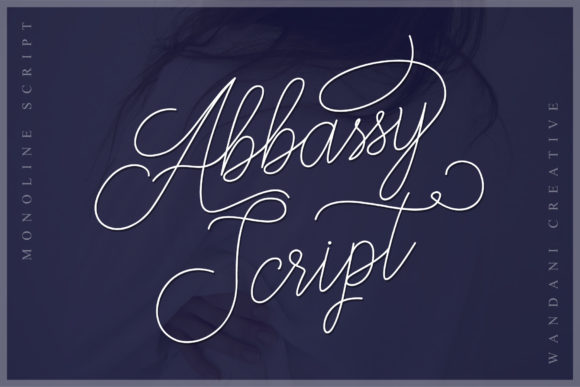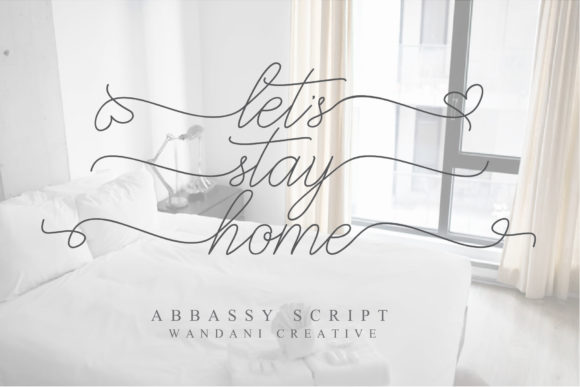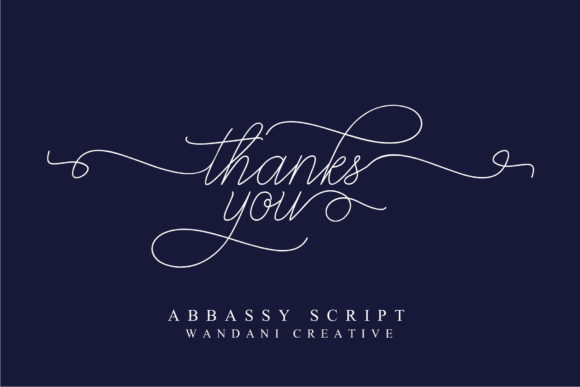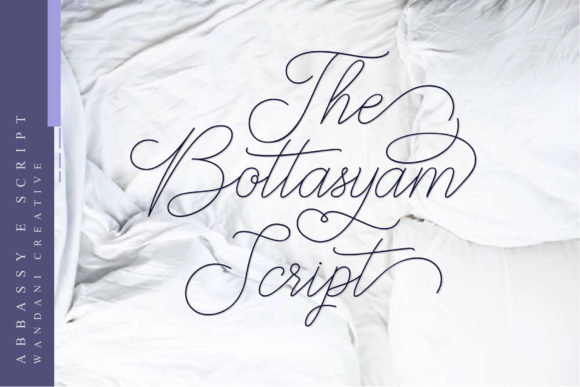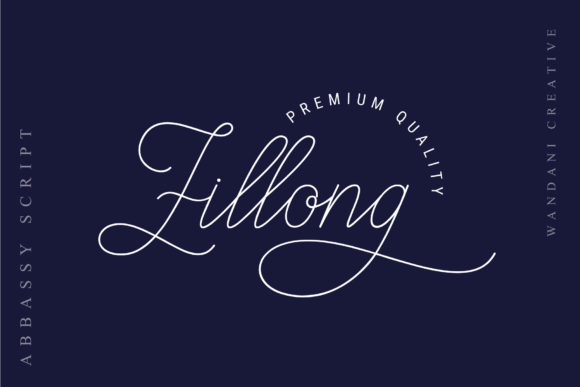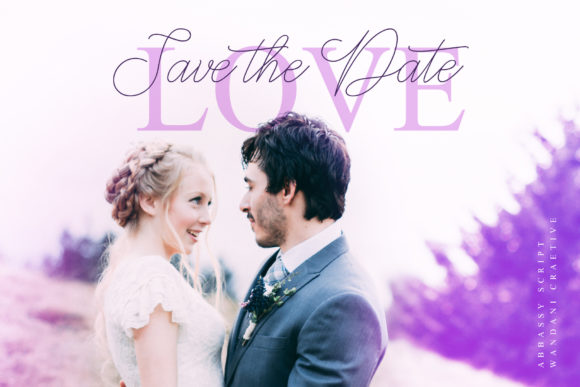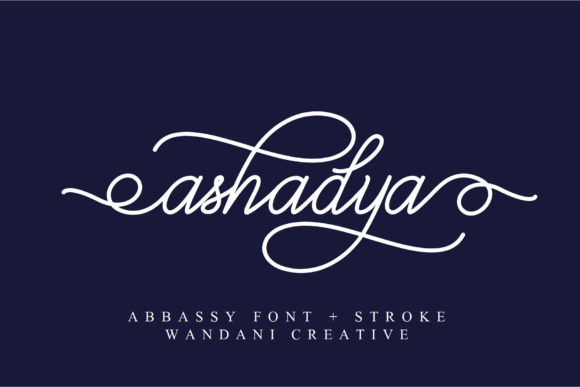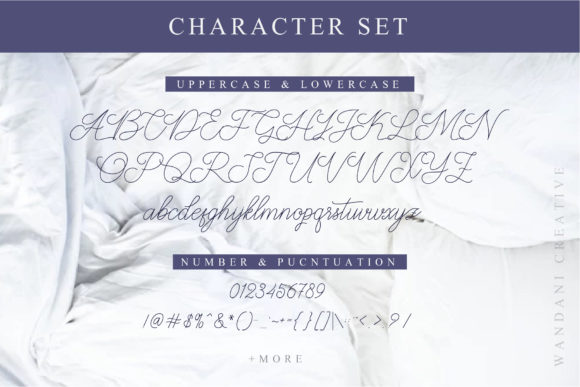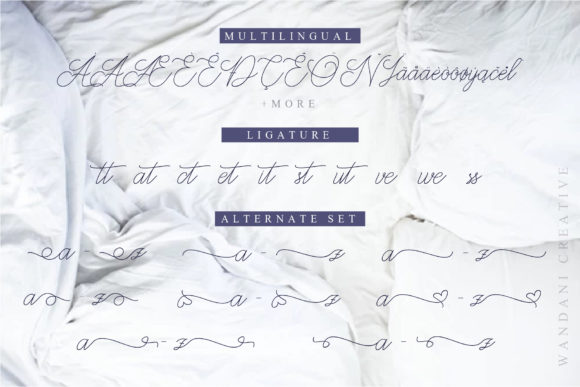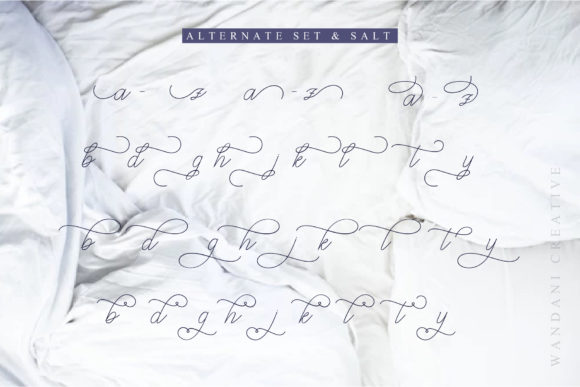
Abbassy Script Font
About Abbassy Script Font
Abbassy is a stunning and bold handwritten font with a timeless appeal. It will add a unique feel to any design project!